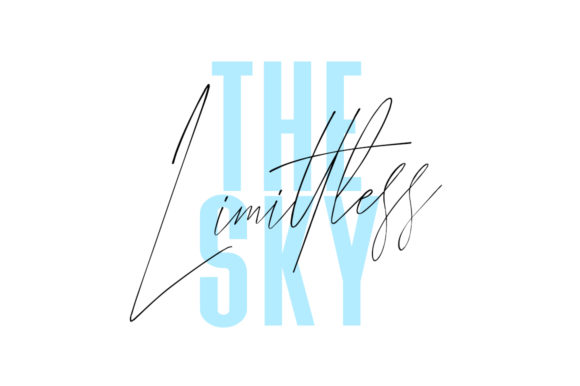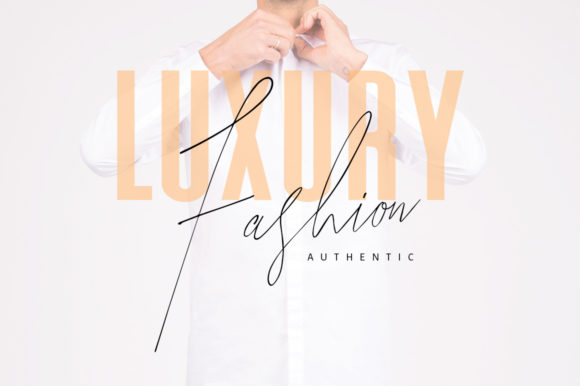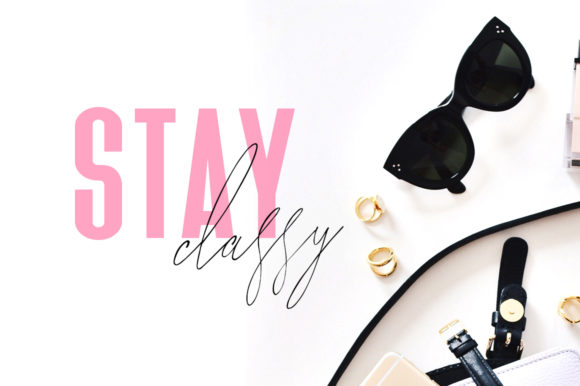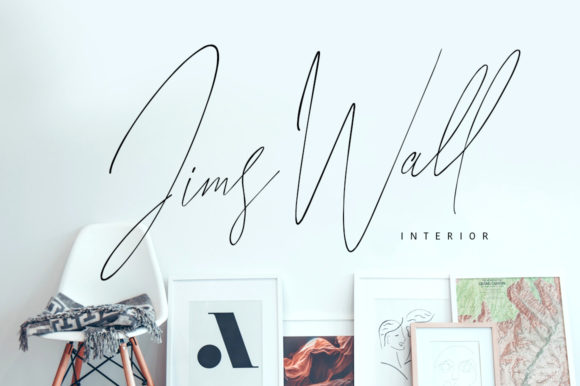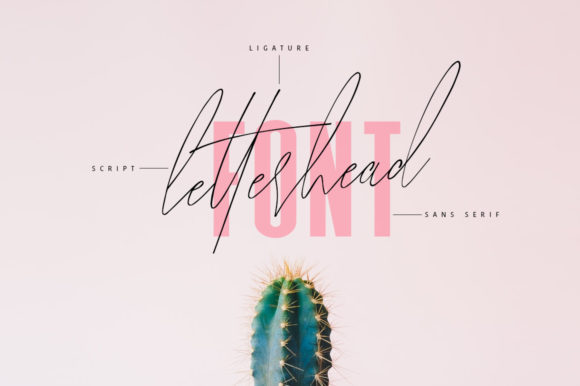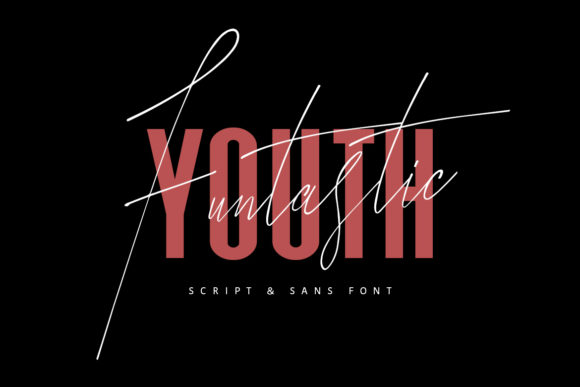
The Perfect Blend of Style and Functionality
Have you ever been brainstorming a design project, flipping through fonts, and suddenly, a spark of creativity strikes? You envision the perfect balance of modern and playful, and your mind starts racing with ideas. For designers, this moment is priceless – and the right font can make all the difference.
Enter the Funtastic Youth Duo Font, a game-changing combination of sans serif and script fonts. This ingenious design allows you to seamlessly blend two distinct styles, giving your projects a unique and eye-catching look. With the Funtastic Youth Duo Font, you can add a touch of whimsy and personality to your designs, making it a valuable addition to any designer’s toolkit.
Funtastic Youth Duo Font Key Features
- Unique Characteristics: The Funtastic Youth Duo Font features a bold and playful design, with a unique duo-style font that combines two different font styles in one. This creates a visually appealing and eye-catching effect.
- Font Style: The font has a fun and youthful feel, making it perfect for use in children’s books, educational materials, and other applications where a playful tone is desired.
Funtastic Youth Duo Font Review
As a designer, I’m always on the lookout for fonts that can bring a touch of fun and youthfulness to my projects. The Funtastic Youth Duo Font is a great attempt at creating a bold and playful font, but does it deliver? ✨ Let’s dive in and see.
- ✨ The font is incredibly versatile and can be used for a wide range of projects, from logos to posters to social media graphics.
- ✨ The bold and playful design elements make it perfect for creating eye-catching headlines and titles.
- ✨ The font is well-suited for targeting a younger audience, making it a great choice for brands that cater to teenagers and young adults.
- ⚠️ The font can be a bit overwhelming if used in large quantities, so be sure to use it sparingly to avoid visual fatigue.
- ⚠️ The font doesn’t include a lot of alternative characters, which can limit its use in certain languages or for creating more complex designs.
Overall, I think the Funtastic Youth Duo Font is a great addition to any designer’s toolkit. While it has some limitations, its versatility and playful design elements make it a great choice for projects that require a bold and youthful vibe. With some careful planning and use, I think this font can really help designers create some amazing projects.
Tips for Getting the Most Out of Funtastic Youth Duo Font
Use Funtastic Youth Duo Font for creating eye-catching headings and titles.
Pair it with a clean and simple font for body text to create a visually appealing contrast.
Experiment with different font sizes and styles to add emphasis and hierarchy to your design.
Funtastic Youth Duo Font is perfect for:
Creating youth-focused designs, such as posters, flyers, and social media graphics.
Designing educational materials, such as lesson plans and worksheets.
Developing brand identities for companies targeting a younger audience.